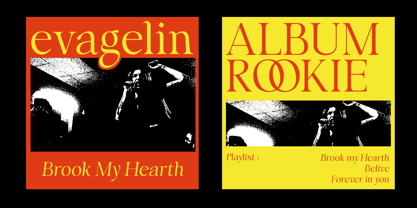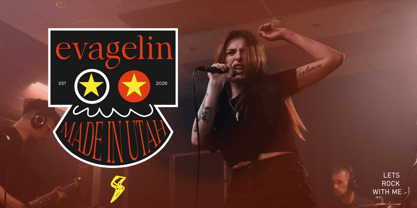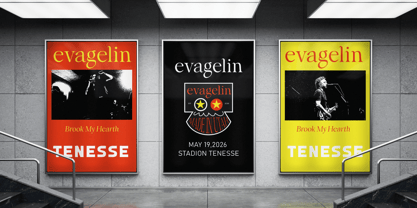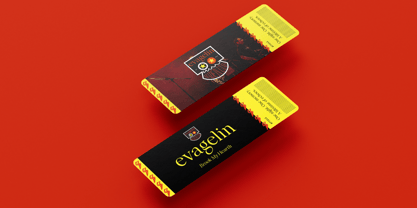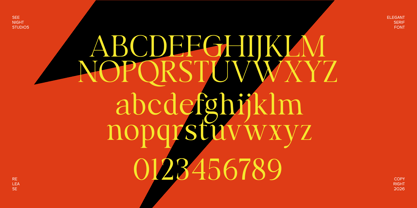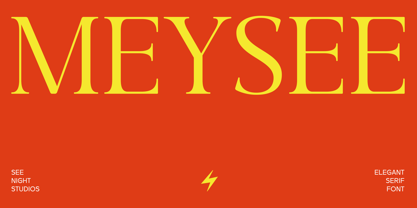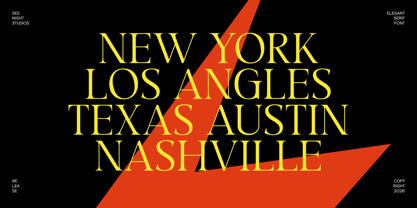
Meysee
by See Night Studio
The Meysee Font Family was designed by Zaenal Muttaqin and published by See Night Studio. Meysee contains 2 styles and family package options. More about this family
Maysee is a typeface that draws inspiration from the softer, more emotional aspects of rock music. Its design narrates the story of a tranquil night, where stage lights gradually illuminate and the soothing sound of a guitar fills the air. Influenced by music posters, Maysee embodies a different facet of rock—embracing not just its vibrant energy and strong character, but also its emotional depth, freedom, and self-expression. Each letter features flowing, simple forms that evoke brushstrokes in harmony with the rhythm of music. Maysee combines a subtle vintage aesthetic with a gentle touch, reminiscent of cherished memories from intimate concerts, heartfelt songs, and warm evening vibes. This typeface does not strive for boldness or power; rather, it allows its character to resonate quietly. For Maysee, music transcends mere sound, capturing the lingering emotions that remain long after the last note fades.
Designers: Zaenal Muttaqin
Foundry: See Night Studio